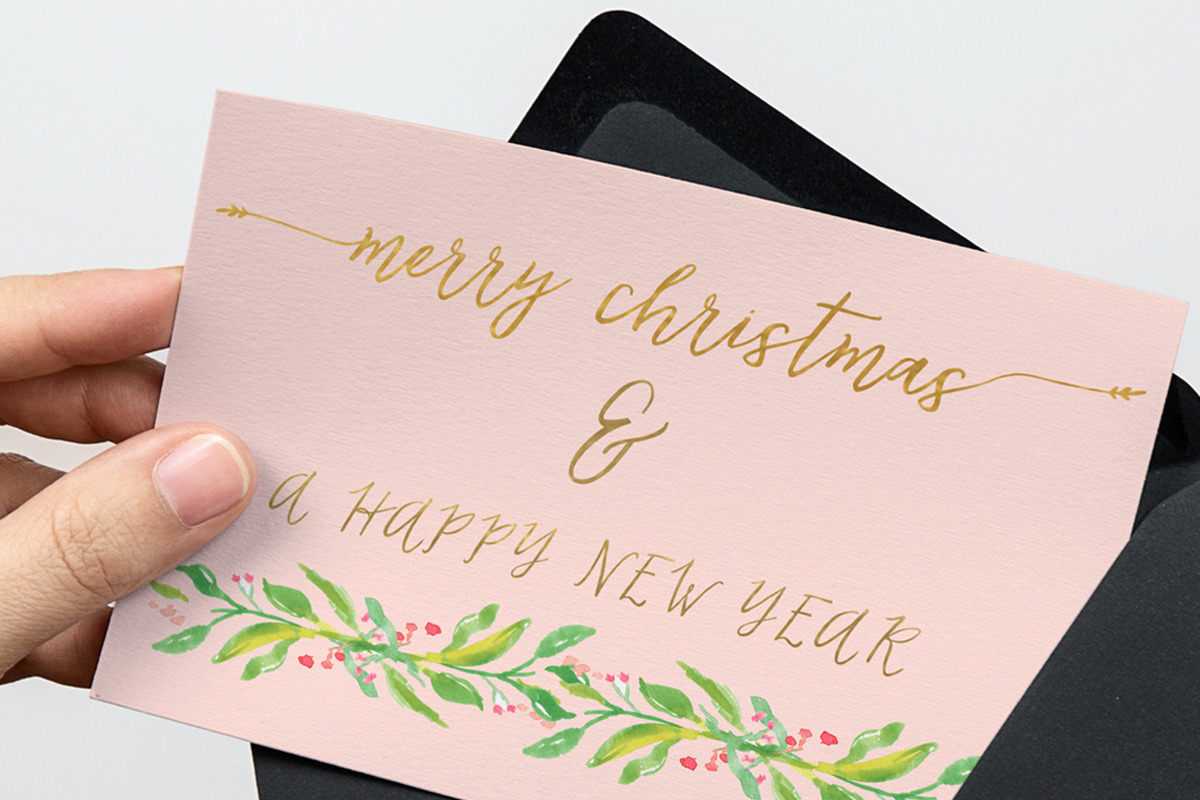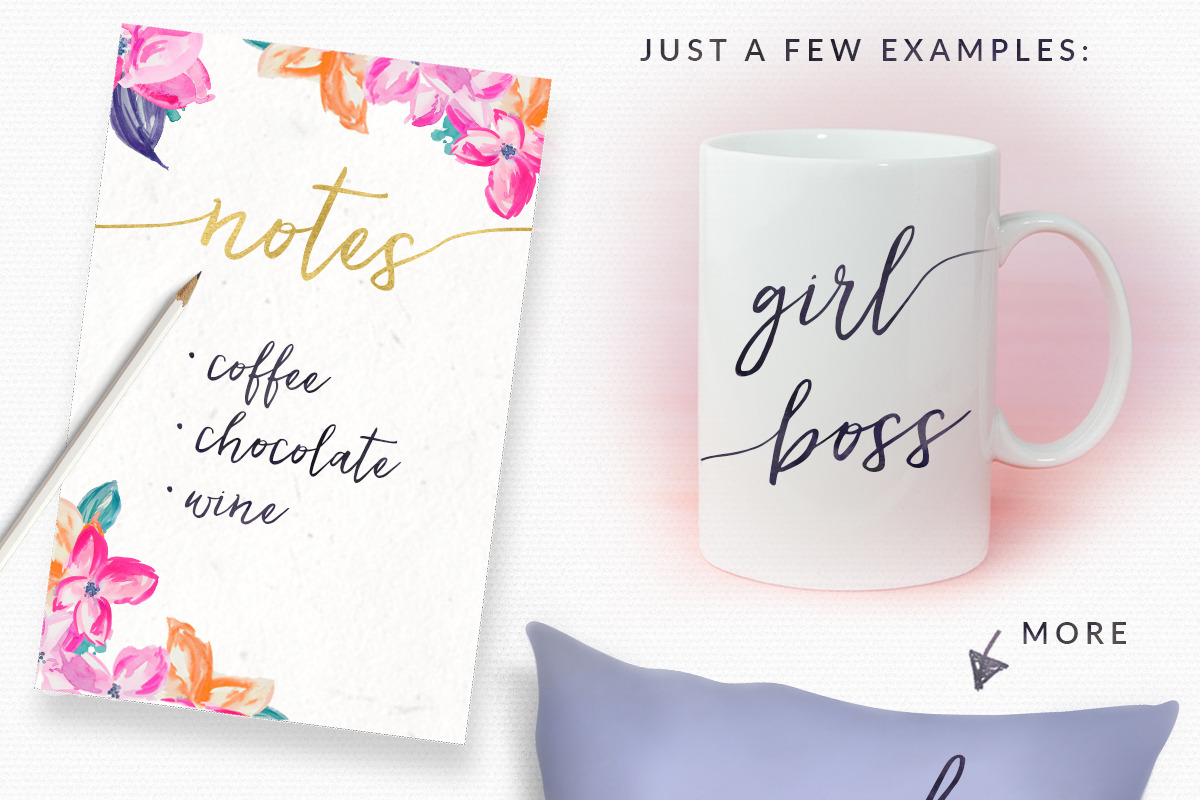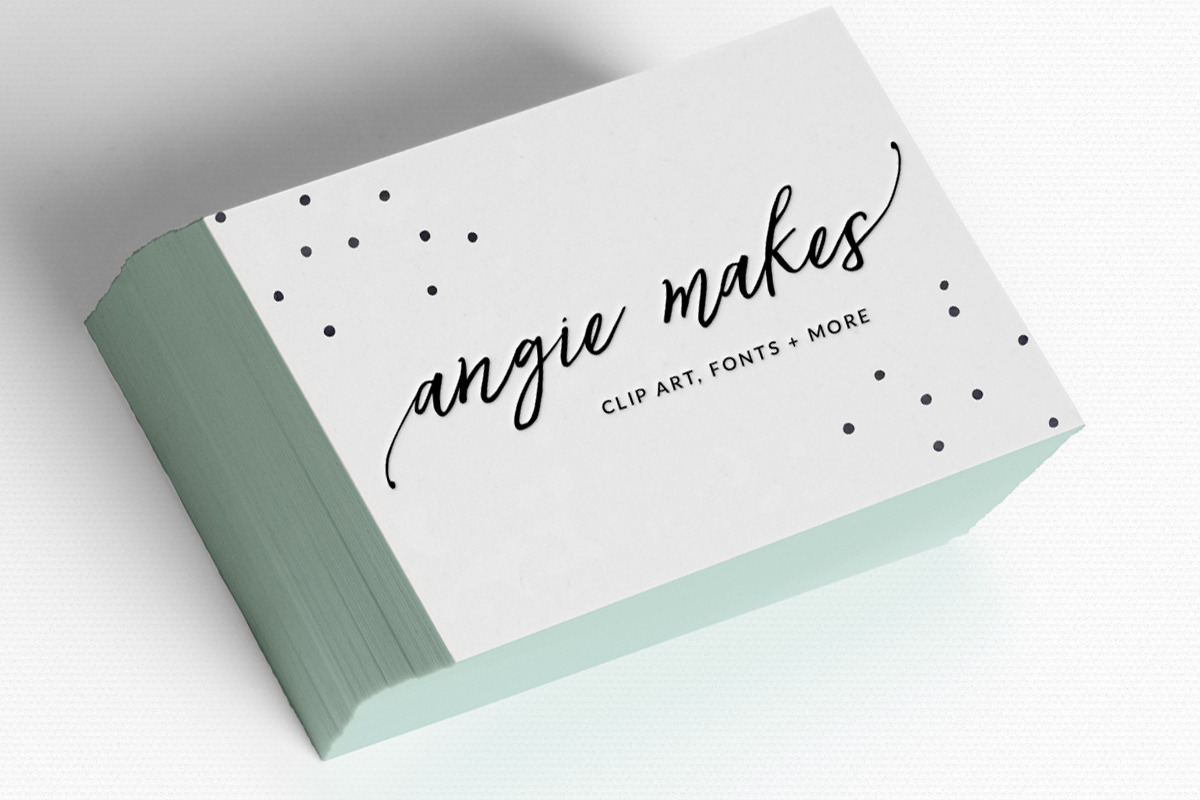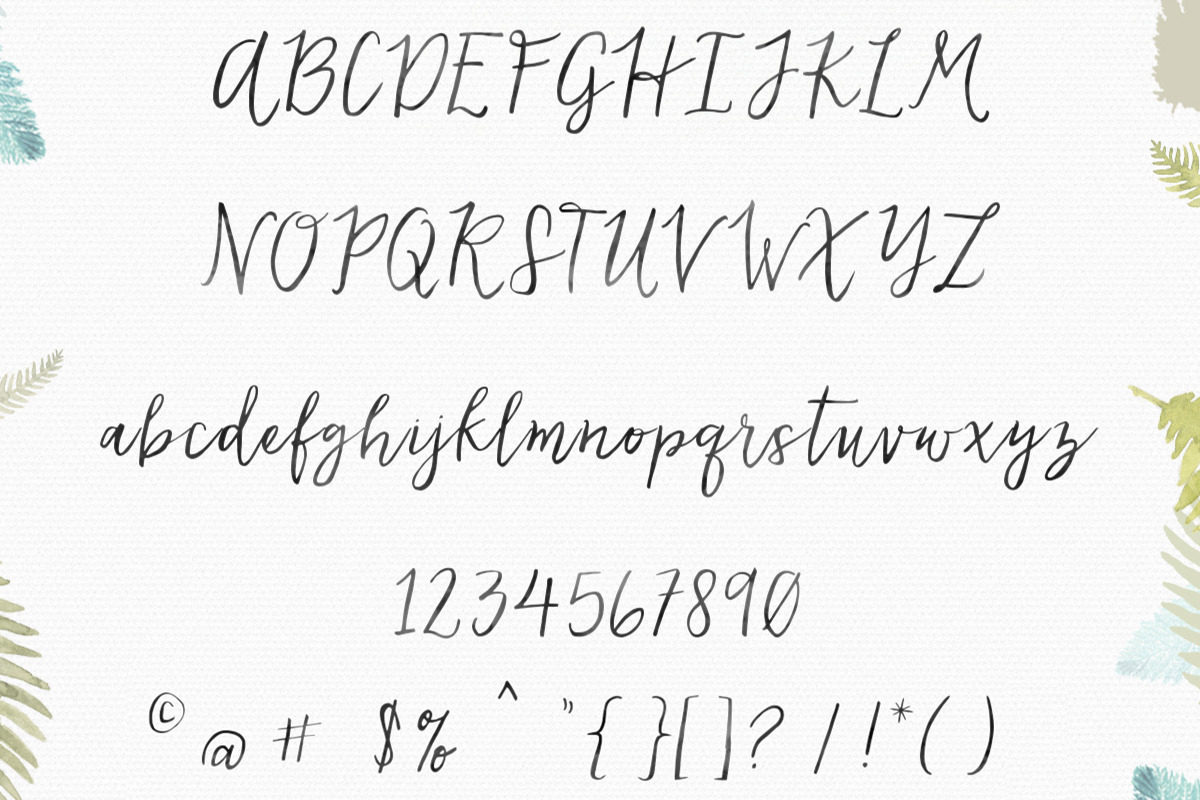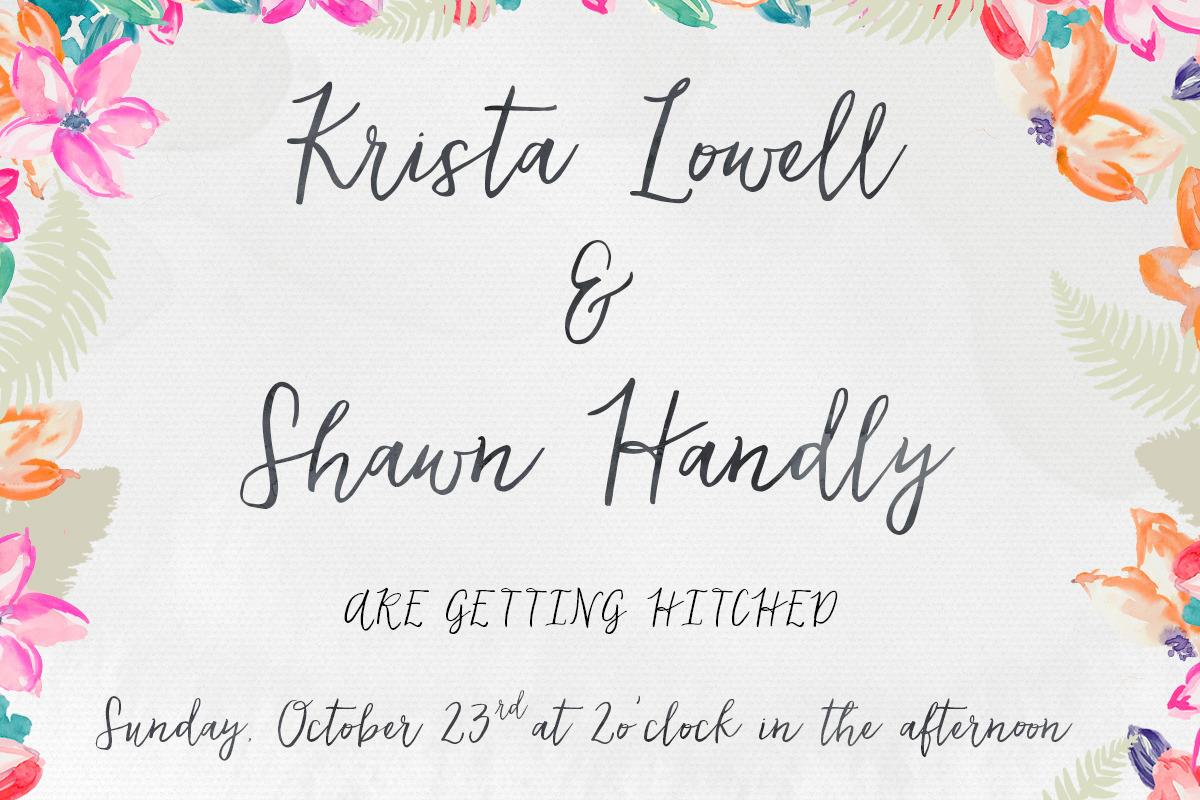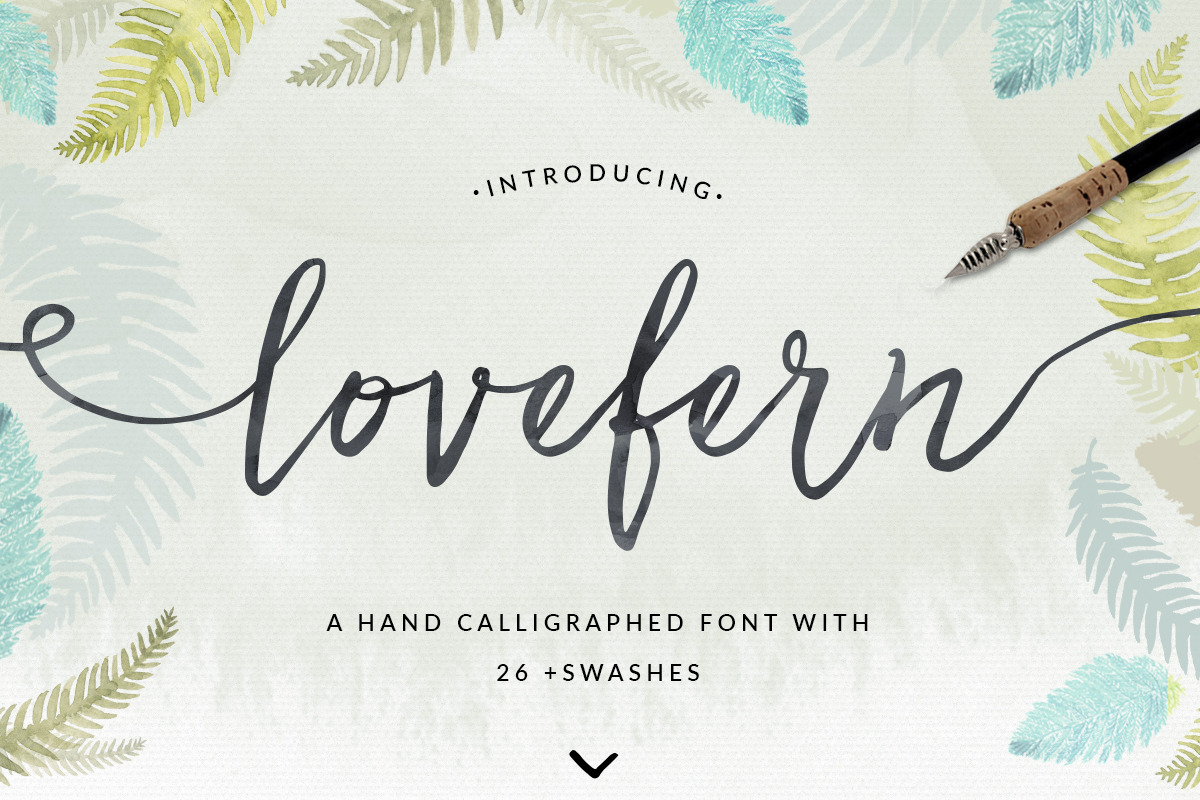
Lovefern Font + SWASHES
Lovefern Font + SWASHES by Angie Makes is a font selected for branding, posters, packaging, typography.
- Font contains unique pairs and some alternates including lowercase end characters with shorter tails.
- Lovefern features a modern calligraphy style with dancing baseline and 26 different swashes that can be applied to the beginning and ends of
- Open Type features include contextual alternates and ordinals.
- Font contains unique pairs and some alternates including lowercase end characters with shorter tails.